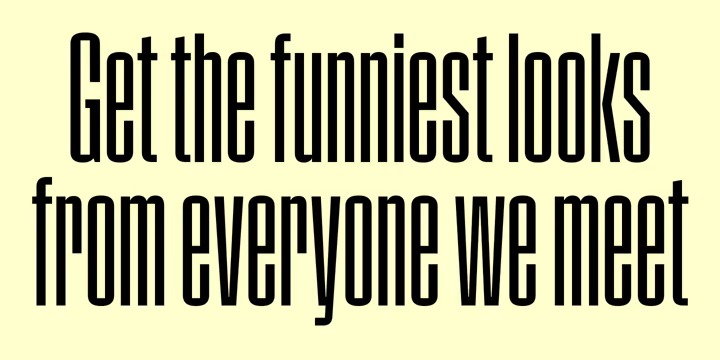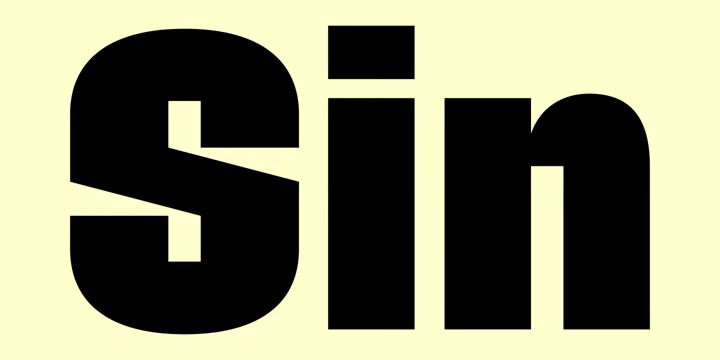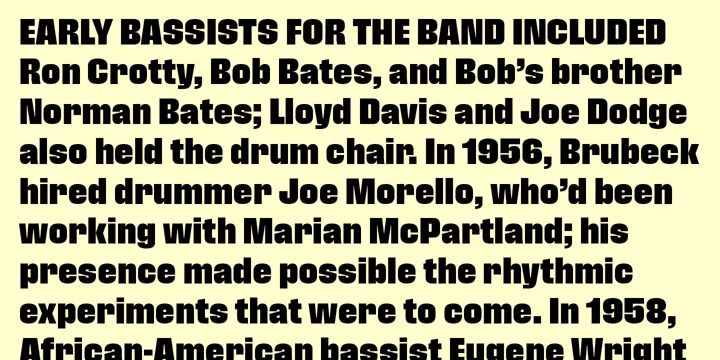
Pressio Font Family
Pressio Sans Serif Font is a strong fontfamily and sophisticated sans serif. Inspired by the animal, it’s sturdy uncompromising style is felt through the controlled letterforms and modern touches. The narrower bold cuts are inspired by the great mid-century skyline sanses. The widest cuts are stark, idiosyncratic, and intense. In between, 20 styles in five weights and four widths provide a broad range of expression. Forms are strict and modular. X-height is high. Curves are subtly superelliptical, and square counters add crispness. For those who prefer it, a set of stylistic alternates is available to round some of the unexpectedly sharp corners of letters like S, s, and a. Case-sensitive punctuation and delimiters are included, and a full range of diacritics provides support for over 130 languages. And it goes well with its sister family, Pressio Stencil. A guide to Pressio’s stylistic alternates and special characters can be downloaded here.